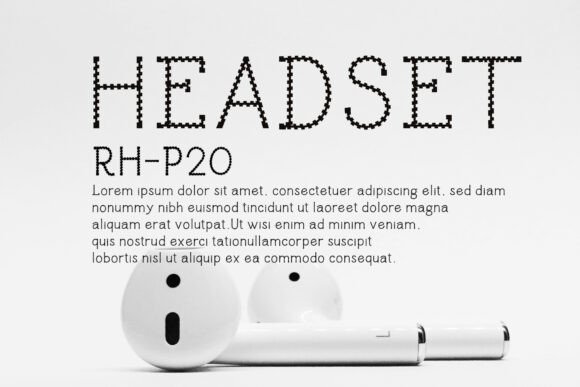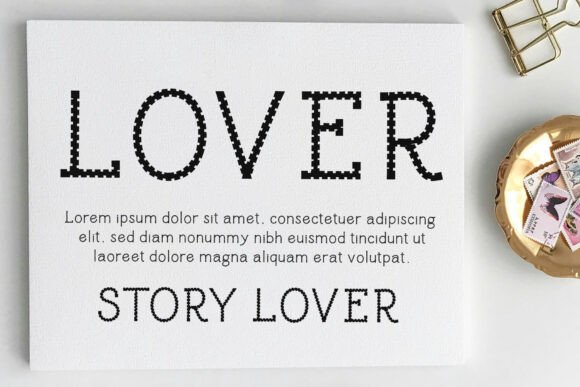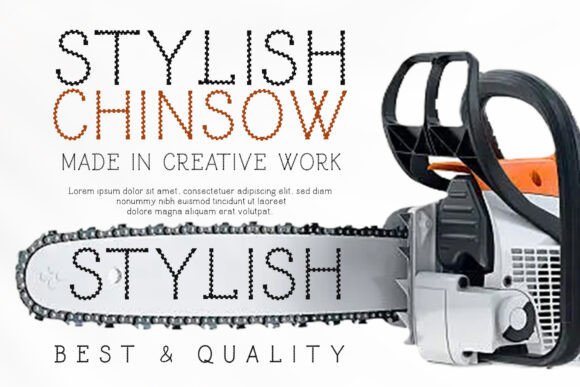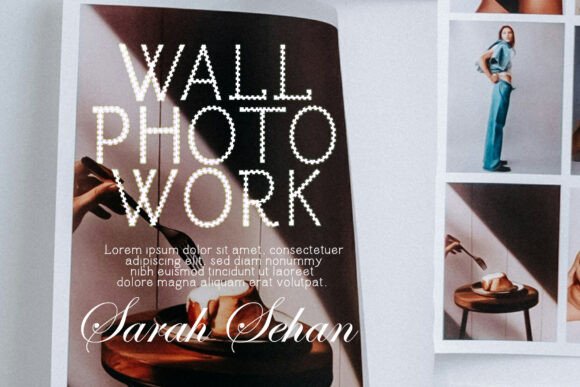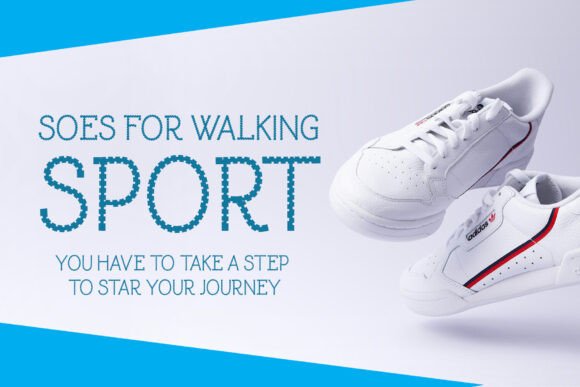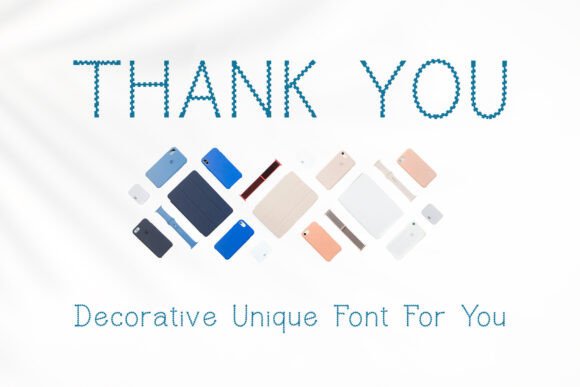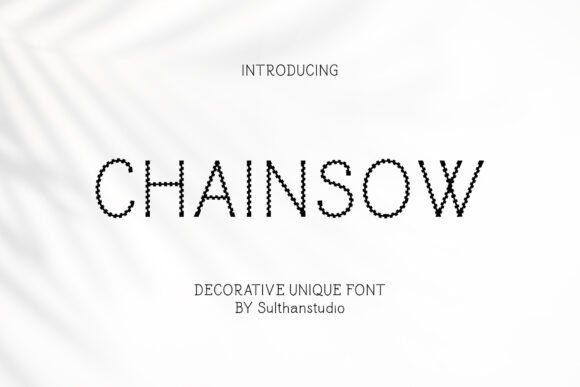
Introducing Chainsaw Font: Unleash the Power of Edgy Typography
Are you tired of using the same old fonts in your designs? Do you want to add a touch of ruggedness and industrial flair to your typography? Look no further than Chainsaw Font, a uniquely crafted font that draws inspiration from the intricate workings of a wood-cutting power saw.
A Font that’s Cut Above the Rest
Our Chainsaw Font is designed to provide a perfectly curated blend of regular and bold formats, ensuring versatility and personalization for your design needs. Whether you’re working on a logo, a brochure, or a website, this font is sure to make a statement. The bold format is perfect for headlines and titles, while the regular format is ideal for body text and descriptions.
A Comprehensive Offering
What sets Chainsaw Font apart from other fonts is its comprehensive offering. Our font includes:
• Upper case letters: A to Z
• Lower case letters: a to z
• Numerals: 0 to 9
• Punctuation marks: !, @, #, $, etc.
• Support for multiple languages
This means that you can use Chainsaw Font for a wide range of design projects, from English language projects to those in other languages. The font is designed to provide a rich typographic experience that’s distinctly yours.
Industrial Flair for Designers and Crafters
Chainsaw Font is perfect for designers and crafters who want to add an industrial touch to their work. Whether you’re designing a logo for a construction company or creating a craft project with a rustic theme, this font is sure to fit the bill. The font’s rugged and edgy design makes it perfect for projects that require a bold and daring look.
Chainsaw Font is versatile and can be used for a wide range of design projects, including:
• Logos and branding
• Brochures and flyers
• Websites and blogs
• Social media graphics
• Craft projects and DIY tutorials
The font’s industrial design makes it perfect for projects that require a bold and edgy look. You can use it to create eye-catching headlines, bold titles, and attention-grabbing graphics.
Why Choose Chainsaw Font?
So why choose Chainsaw Font over other fonts? Here are just a few reasons:
• Unique design: Our font has a unique and industrial design that’s sure to make your projects stand out.
• Versatility: The font comes in regular and bold formats, making it perfect for a wide range of design projects.
• Comprehensive offering: Our font includes upper case and lower case letters, numerals, punctuation marks, and support for multiple languages.
Get Ready to Cut Through the Noise
If you’re looking for a font that will help you cut through the noise and make a statement, look no further than Chainsaw Font. Our uniquely crafted font is designed to provide a rich typographic experience that’s distinctly yours. With its industrial design and comprehensive offering, Chainsaw Font is perfect for designers and crafters who want to add a touch of ruggedness and edginess to their work.